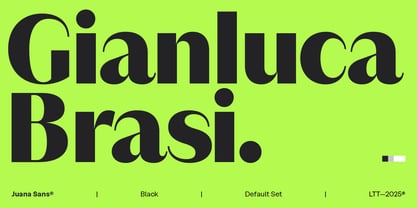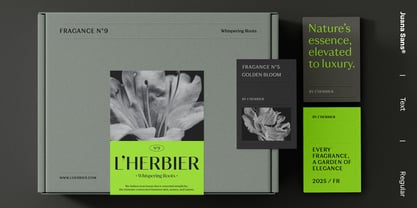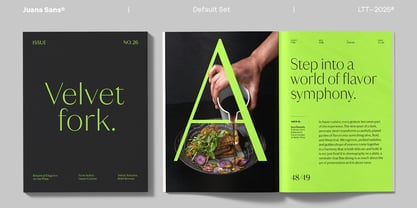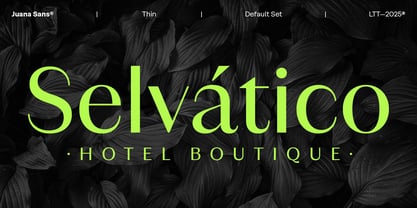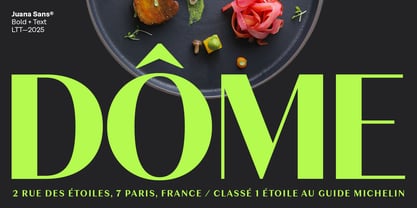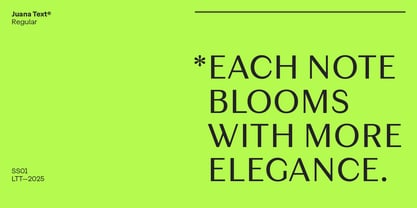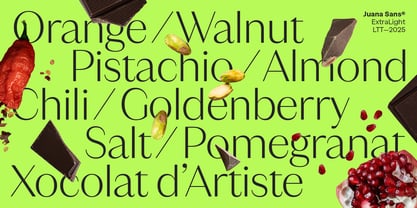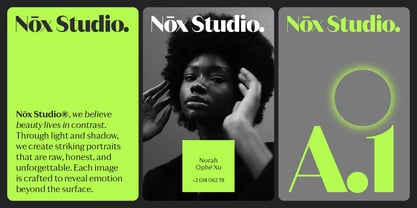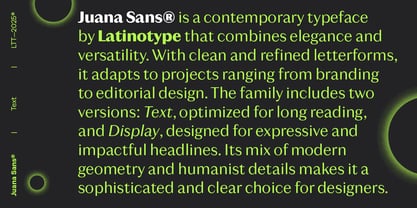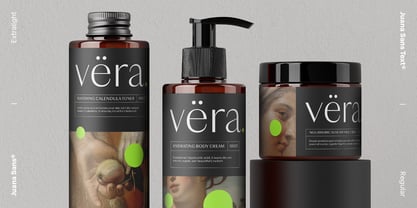
Juana Sans
Die Schriftfamilie Juana Sans wurde von Latinotype Team, Eli Hernandez entworfen und von Latinotype veröffentlicht. Juana Sans enthält 24 Stile und Familienpaketoptionen.
Elegance and readability in a comprehensive typographic system Ely Hernández, together with the Latinotype team, presents two new versions of Juana that expand the type family with complementary approaches. Juana Display, with its high contrast and precise curves, is designed for titles and headlines where elegance and visual impact take center stage. Meanwhile, Juana Text softens contrast and reinforces fine strokes to provide smooth, comfortable reading in long paragraphs, while preserving the stylized, editorial character that defines the family. Both versions naturally interact with the original Juana, forming a coherent, versatile, and contemporary typographic system that easily adapts to a wide range of visual communication needs. Perfect for editorial projects, magazines, branding, books, and digital environments, Juana invites designers to explore the contrast and harmony between its different personalities, enhancing the expressive power of typographic design. Juana: a system designed to explore the full editorial spectrum… and beyond.